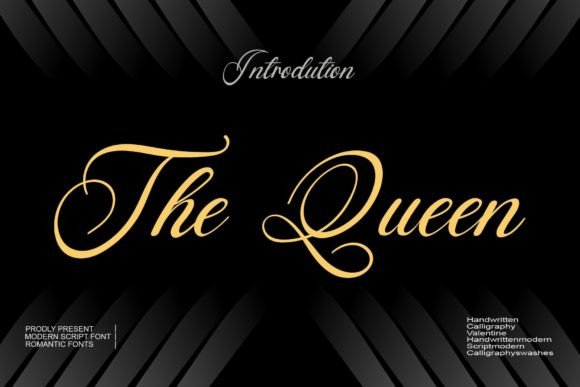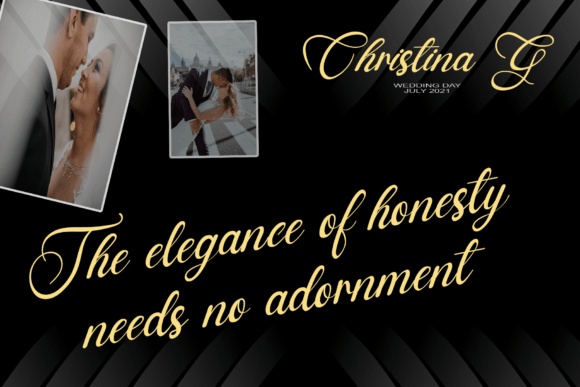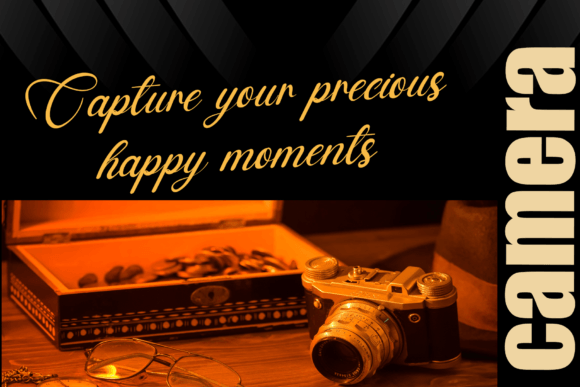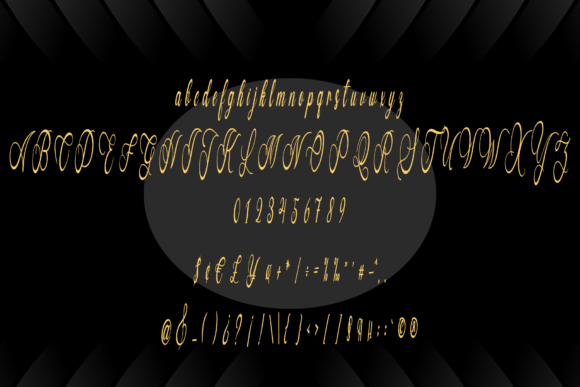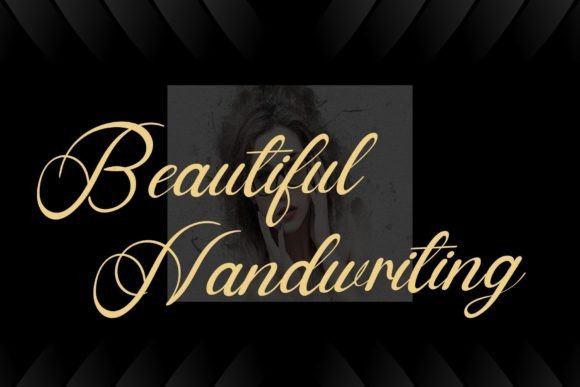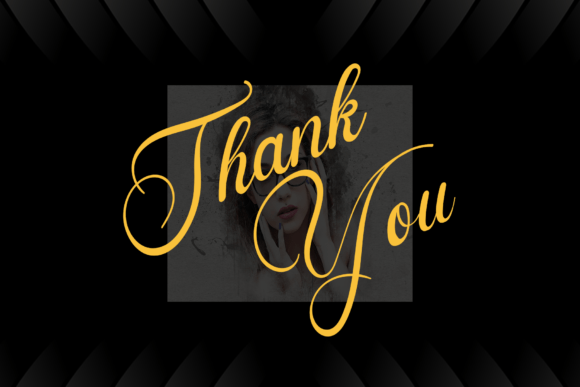
The Queen Font
About The Queen Font
“The Queen” is an enchanting handwritten font that exudes elegance and charm. Its delicate and graceful script makes it a versatile choice, suitable for a wide range of design applications. Whether you’re working on greeting cards, headlines, invitations, or any other creative project, “The Queen” font adds a touch of romance and sophistication, making your designs truly captivating.
The font’s enchanting quality lies in its intricate details and flowing letterforms. Each stroke is carefully crafted, capturing the essence of a handwritten script with a romantic twist. The elegant curves and gentle lines create a sense of refinement, making “The Queen” font ideal for projects that require a romantic and whimsical touch.
In greeting cards, “The Queen” font transforms ordinary messages into heartfelt expressions of love and affection. Its enchanting script lends a personal and intimate feel, making your cards feel warm and genuine. Whether you’re crafting birthday wishes, love notes, or messages of gratitude, the font enhances the emotional impact of your words, creating memorable and cherished moments for the recipients.
For headlines and titles, “The Queen” font adds a touch of magic and allure. Its romantic feel creates captivating visual experiences, making it suitable for magazines, blogs, and websites that focus on topics related to love, relationships, fashion, or fantasy. The font’s ability to evoke emotions and create a sense of wonder makes it a valuable asset for designers aiming to craft immersive and enchanting narratives.
In wedding invitations and stationery, “The Queen” font sets a romantic and whimsical tone. Its enchanting script enhances the overall theme of weddings, adding a touch of sophistication and fairy-tale charm to invitations, place cards, and thank-you notes. The font’s delicate and romantic appearance complements various wedding styles, from rustic and vintage to modern and elegant, making it a popular choice among couples seeking to create a magical atmosphere for their special day.
In summary, “The Queen” font is a captivating and versatile typeface that adds a romantic feel to any project it graces. Its enchanting and handwritten style makes it a favorite among designers for both personal and professional applications. Embrace the magical allure of “The Queen” font in your creative endeavors, and let it transform your projects into enchanting and romantic masterpieces that resonate with the hearts of your audience.